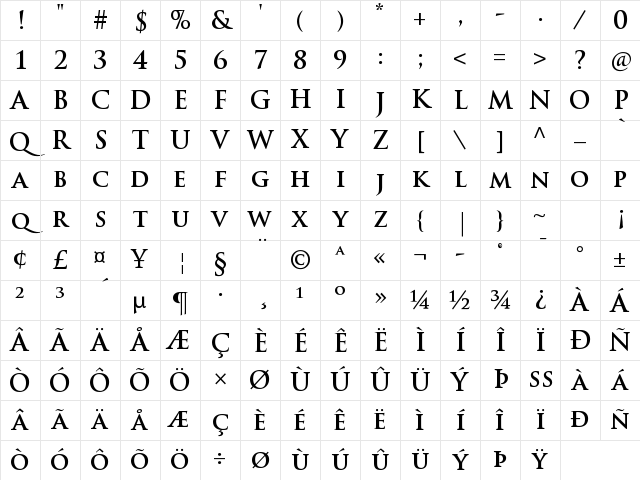
Trajan Pro Bold
Designer: Carol Twombly
Design Context for Trajan Pro
Trajan Pro is a composed and adaptable typeface that performs quietly and consistently across a wide range of design contexts. Its bold stroke weight gives it real presence on the page.
Pro Tip: Use Trajan Pro in both headline and body roles to test its range before committing to a single application.